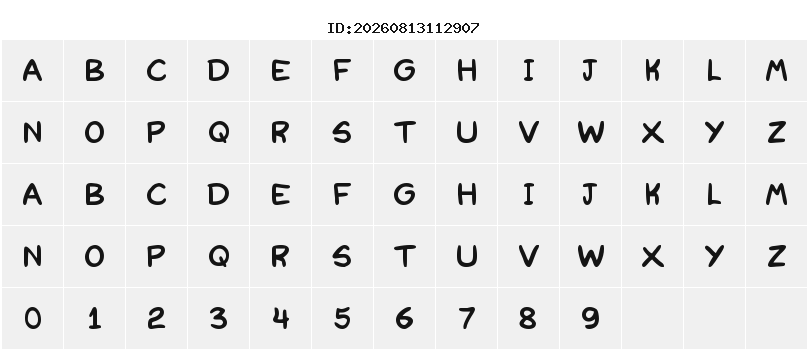
About Redkost Comic.otf
Redkost Comic.otf is a modern, elegant sans-serif font designed for ultimate readability and visual harmony. Perfect for branding, headlines, web design, and print materials.